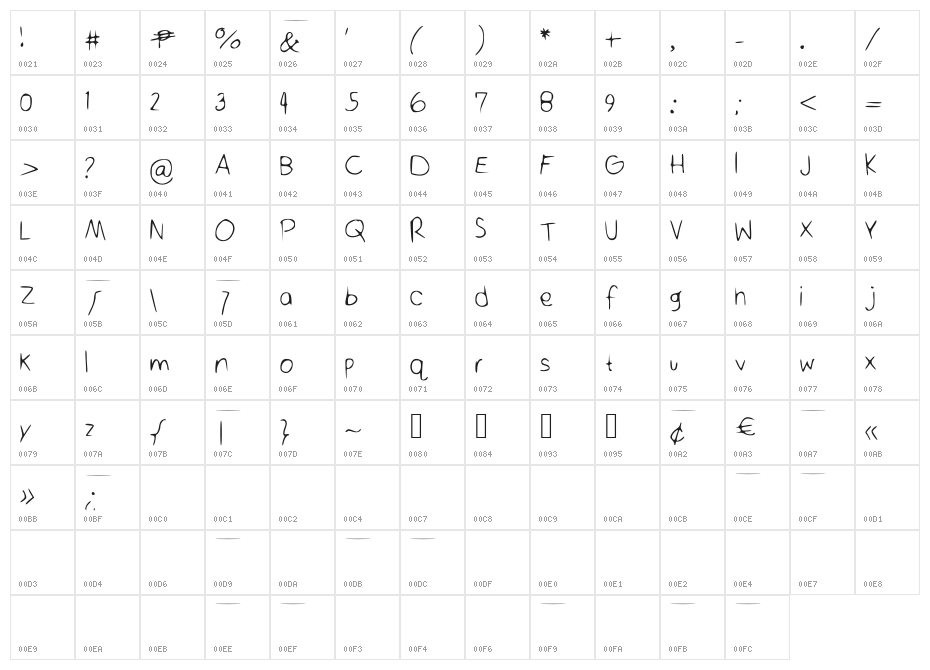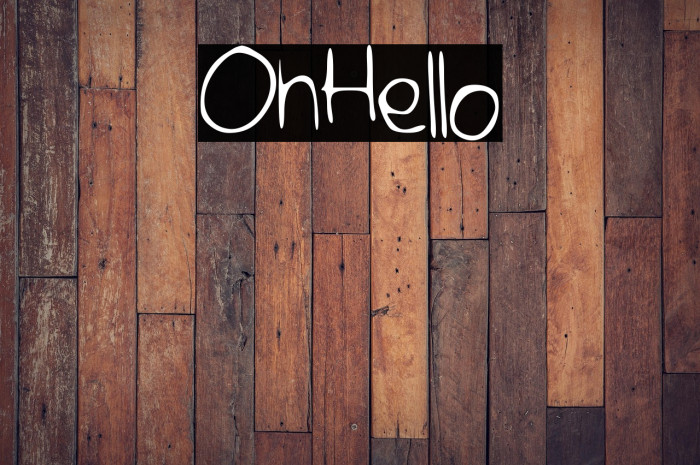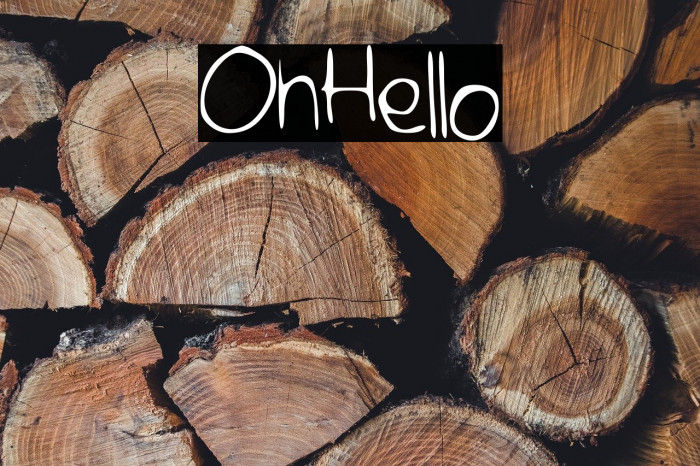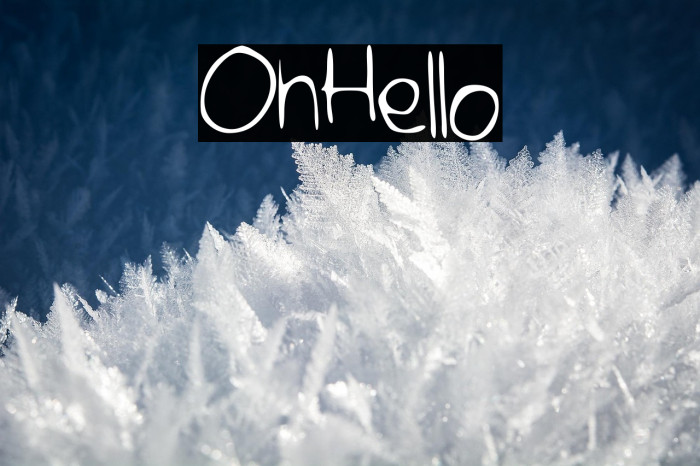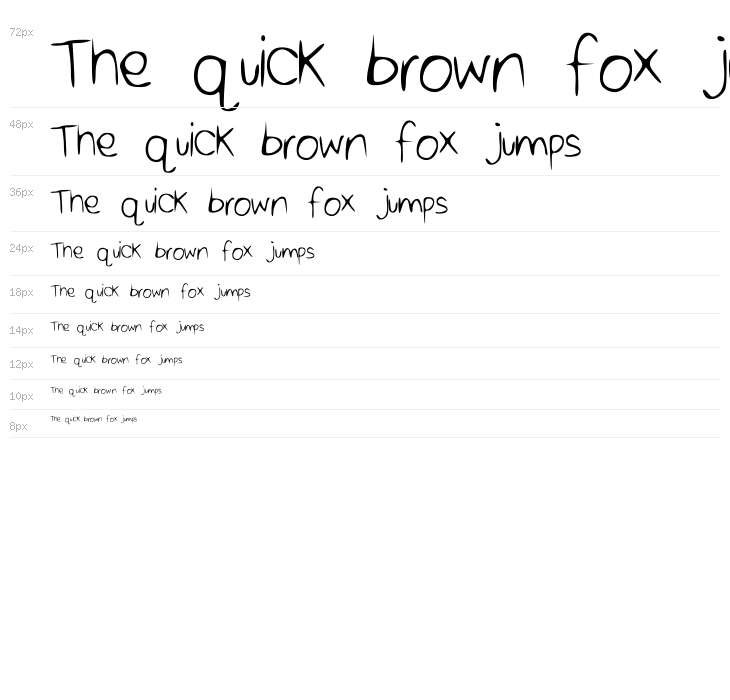
OhHello Font
OhHello Description
This font features a playful and whimsical style, characterized by its irregular and slightly exaggerated strokes. The letters have a hand-drawn appearance, with varying line thicknesses that add a dynamic and lively feel. The uppercase letters are tall and slightly narrow, while the lowercase letters maintain a consistent height, contributing to a cohesive look. The numbers and special characters follow the same playful design, making the font versatile for creative projects. The overall impression is casual and friendly, suitable for informal and fun contexts.
| Overall Style | Playful |
| Proposed Projects | Ideal for children's books, playful branding, greeting cards, and creative posters. |